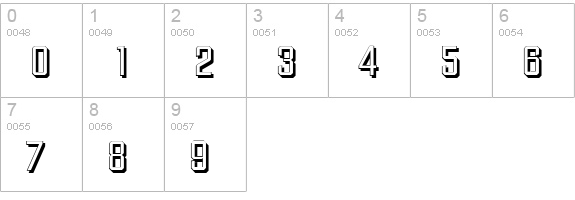
DiamanteShadow-Regular is the standard, neutral variant in the DiamanteShadow typeface family \xE2\x80\x94 well suited to general body text, paragraphs, and standard typographic work.
DiamanteShadow-Regular is a stunning and elegant font that exudes sophistication with its intricate design and delicate details. This font is perfect for adding a touch of luxury to any project, whether it's a wedding invitation, logo design, or packaging. The unique shadow effect adds depth and dimension to the text, creating a captivating visual impact. Best of all, DiamanteShadow-Regular is available for free download at FontsMarket.com. This means you can easily access this exquisite font without any cost, making it a valuable addition to your font collection. Don't miss out on the opportunity to enhance your designs with the beauty and charm of DiamanteShadow-Regular. Download now and let your creativity shine!